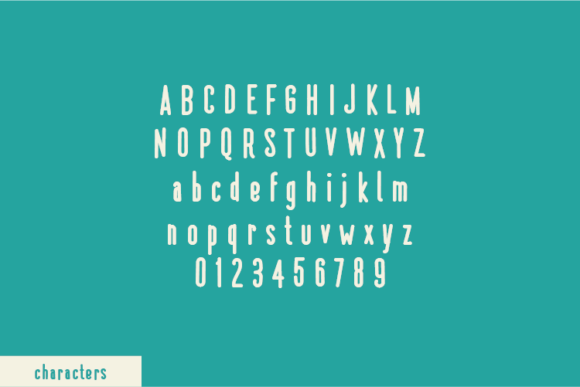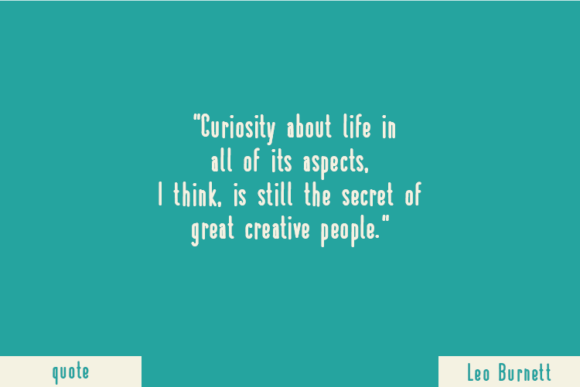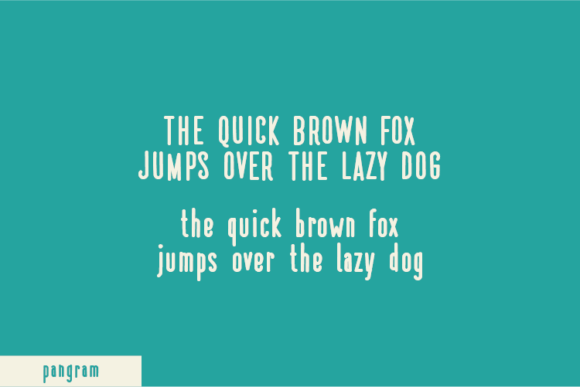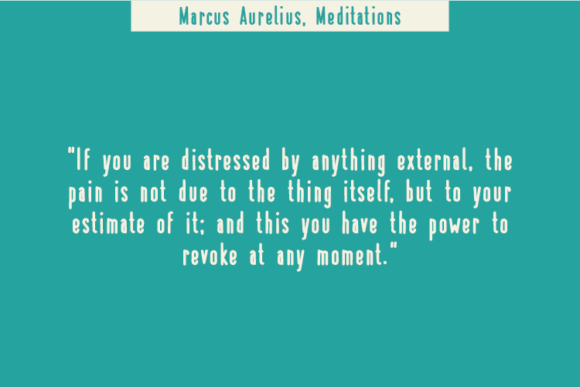
Introduction to Krischnan Font
As a designer, have you ever found yourself scribbling notes in the margins of a sketchbook or jotting down ideas on a sticky note? Those scribbled words often hold a special kind of creative magic – a sense of imperfection and authenticity that can be hard to replicate with digital tools.
That’s exactly what makes the Krischnan Font so captivating. This unique, natural handwritten font is designed to mimic the organic feel of handwritten text, without sacrificing any of the precision and clarity that digital design demands.
With the Krischnan Font, you can add a touch of personality and whimsy to your design projects, from quotes and notes to product designs and more. And the best part? It’s available for free download, making it a valuable resource for designers of all levels.
Key Features of Krischnan Font
• High-quality design resource ideal for creative projects requiring a unique aesthetic.
• Designed to be versatile, suitable for a range of applications, from digital graphics to print materials.
• Includes a range of characters and glyphs, making it a comprehensive design resource.
Honest Review: Krischnan Font
I recently stumbled upon the Krischnan Font, a free download that caught my attention as a potential design resource for a creative project. Initially, I was impressed with its high quality and versatility.
Here are some aspects where the Krischnan Font shines:
• ✨ Unique and modern design that can add a touch of sophistication to any project.
• ✨ High-quality vector graphics that can be scaled up or down without losing any detail.
• ✨ A wide range of styles and formats available, making it easy to use across different design platforms.
• ⚠️ Limited character set, which might not be suitable for projects that require a wide range of characters.
• ⚠️ Transparent background option is not always consistent, which can lead to some design issues.
Overall, the Krischnan Font is a great addition to any designer’s toolkit. While it has its limitations, its high quality and modern design make it a great choice for creative projects. I would definitely consider using it again in the future.
Tips for Getting the Most Out of Krischnan Font
To get the most out of the Krischnan Font, experiment with different font sizes and styles to create visual interest. You can also pair the font with other design elements, such as graphics and images, to enhance your creative project.
Common Use Cases for Krischnan Font
The Krischnan Font is perfect for a variety of creative projects, including graphic design, digital art, and branding. Its high-quality design and transparent background make it an ideal choice for designers looking for a versatile and professional font.